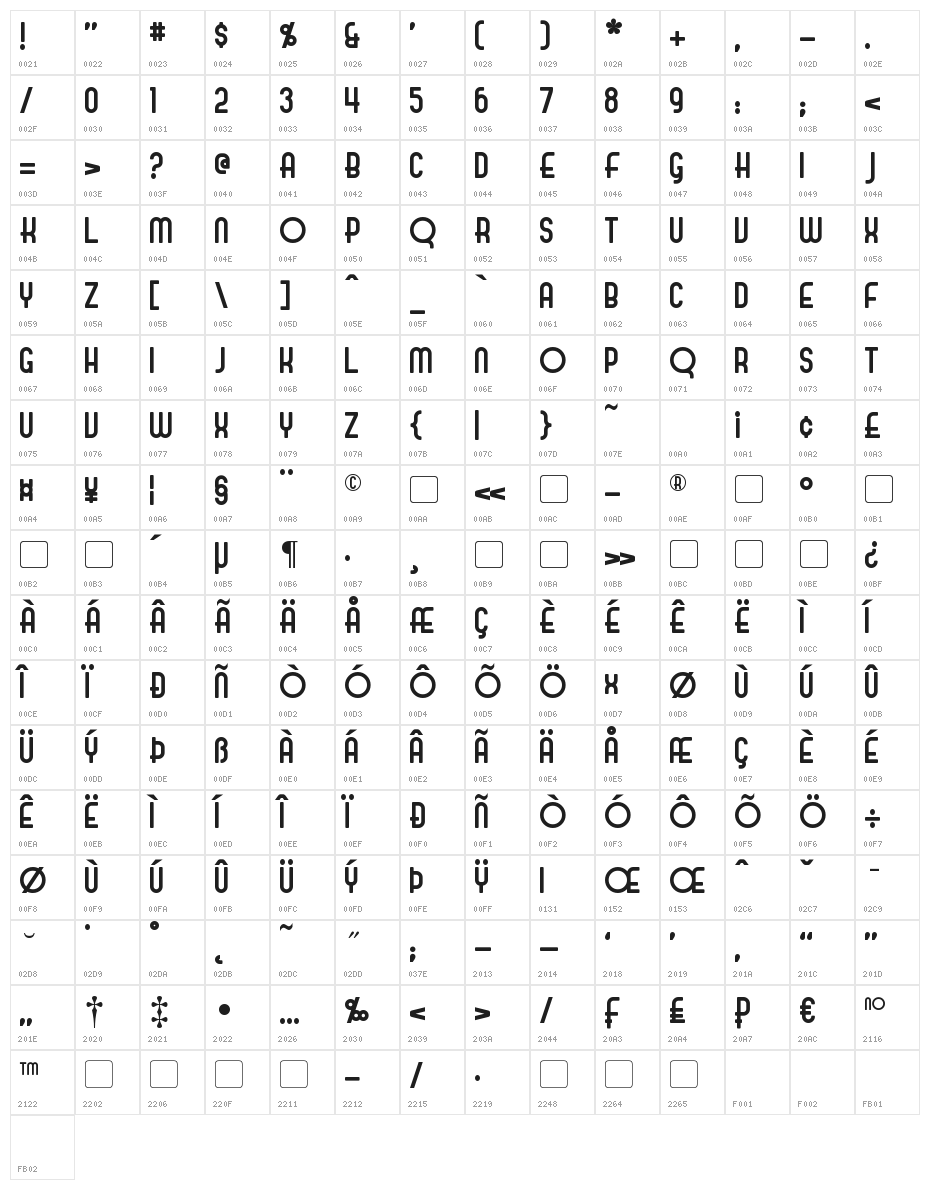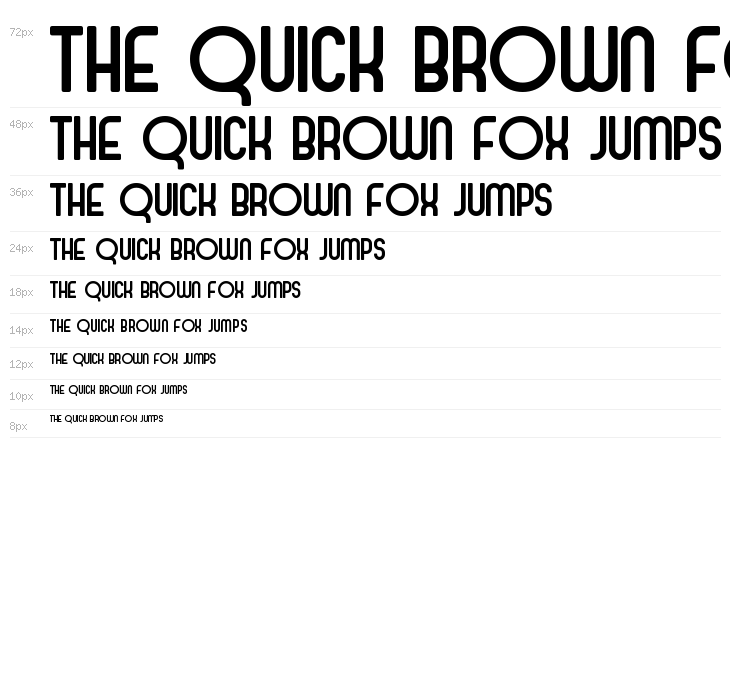
Evelyn Font
Evelyn Description
This font features a modern and geometric design with rounded edges, creating a friendly and approachable appearance. The characters are uniform in width, contributing to a clean and organized look. The uppercase and lowercase letters maintain a consistent style, with smooth curves and a balanced structure. The numerals are clear and legible, matching the overall aesthetic of the alphabet. Special characters are designed to blend seamlessly with the rest of the font, ensuring versatility in various applications. The font's simplicity and clarity make it suitable for a wide range of design projects.
EVELYN UPPERCASE
EVELYN LOWERCASE
EVELYN OTHER CHARS
| Use Case | Headlines, Logos, Digital interfaces |
| Proposed Projects | Ideal for branding, signage, packaging, and digital interfaces. |